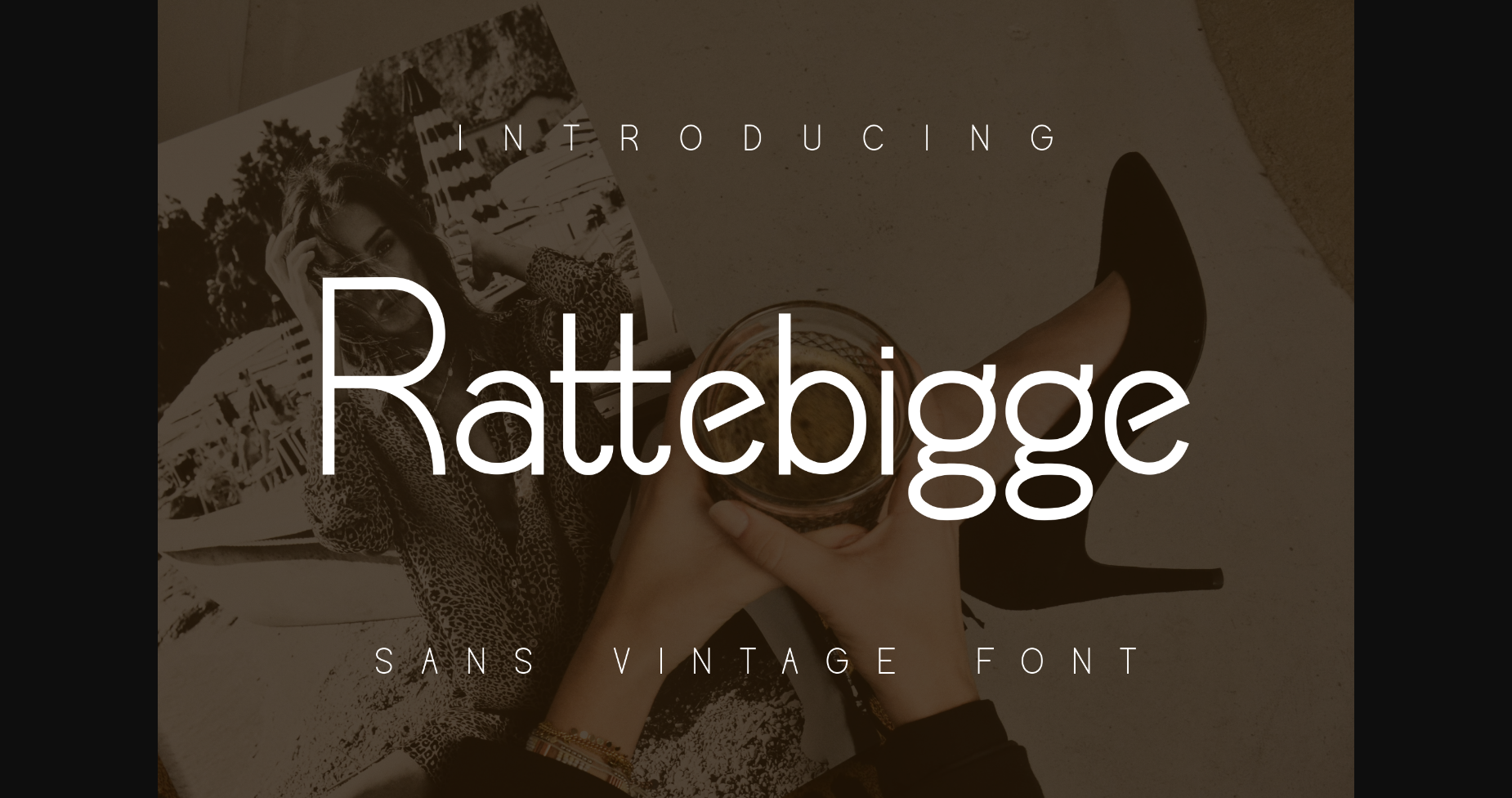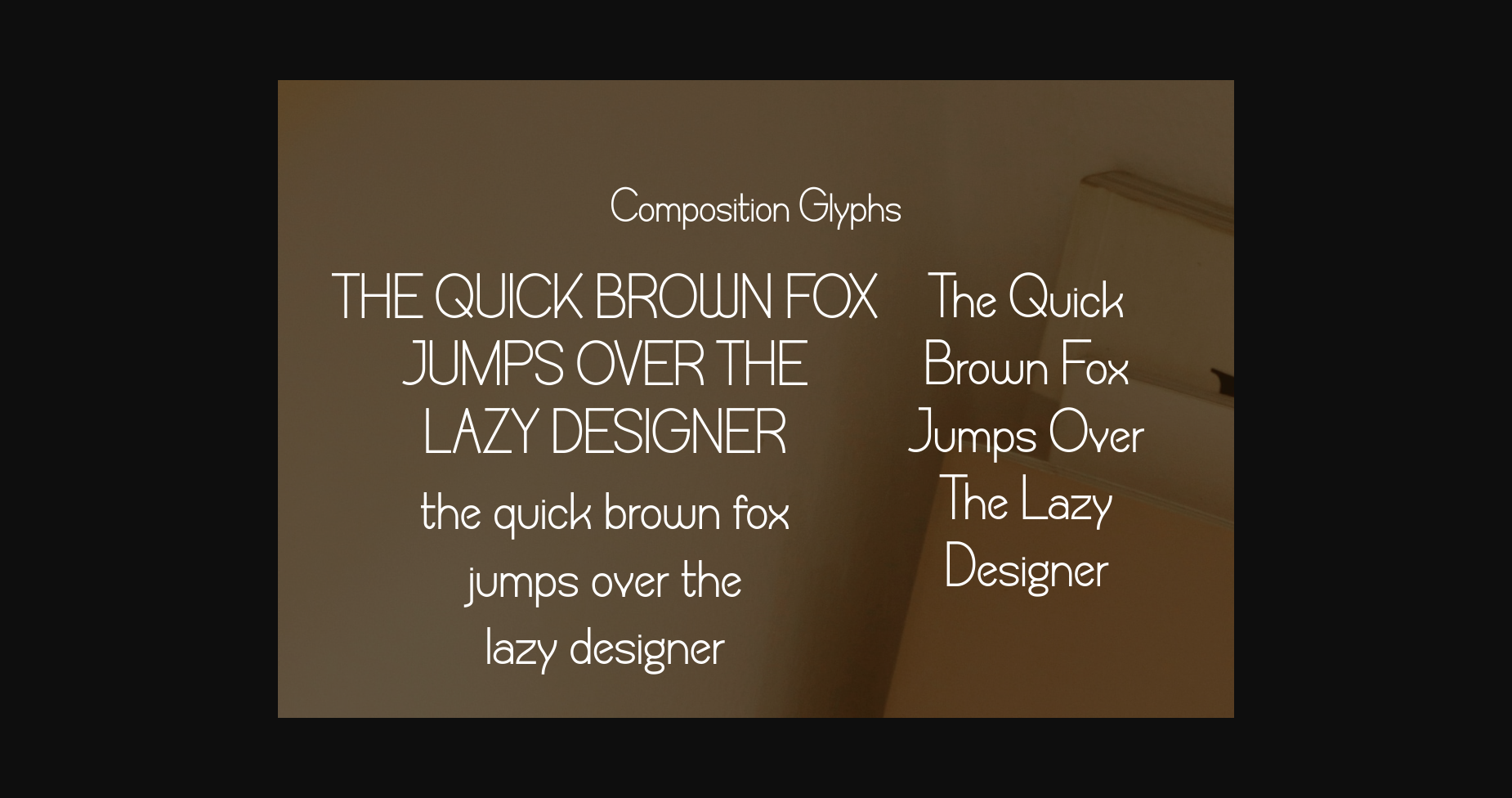
About Rattebigge Font
The Standard Monoline font is combined with the typical Vintage curvature which makes the shape more balanced and still light.
The advantage of this font is that it is easy to read and maintains its sans-vintage characteristics.
Writing magazines or products that describe a vintage atmosphere is highly recommended.
The advantage of this font is that it is easy to read and maintains its sans-vintage characteristics.
Writing magazines or products that describe a vintage atmosphere is highly recommended.